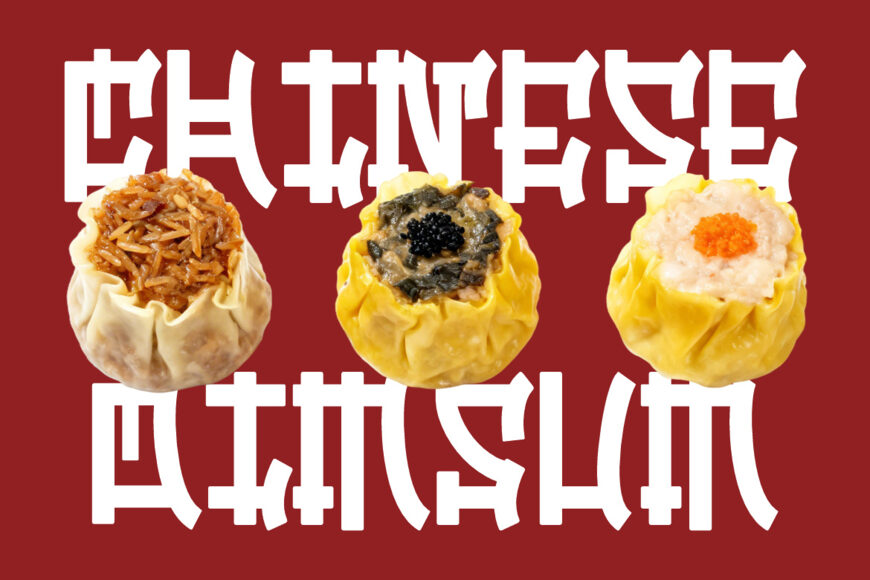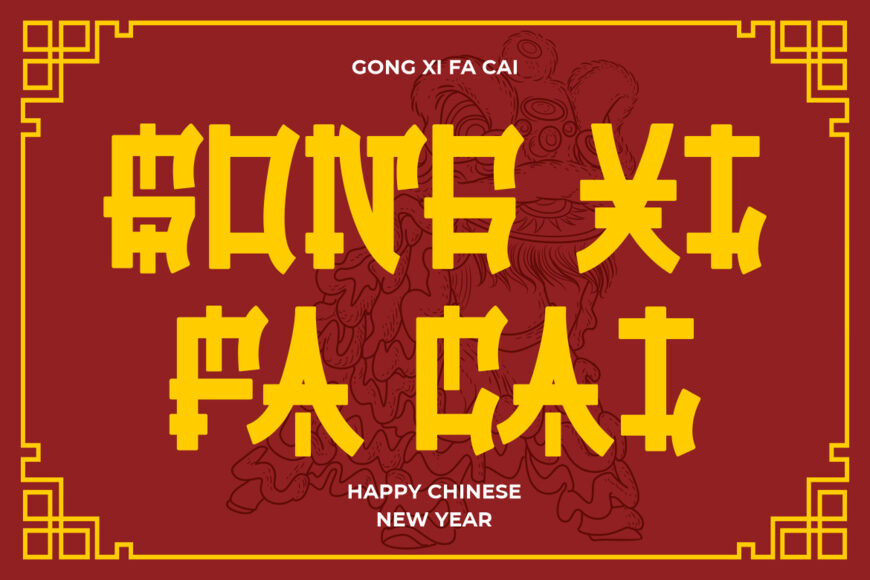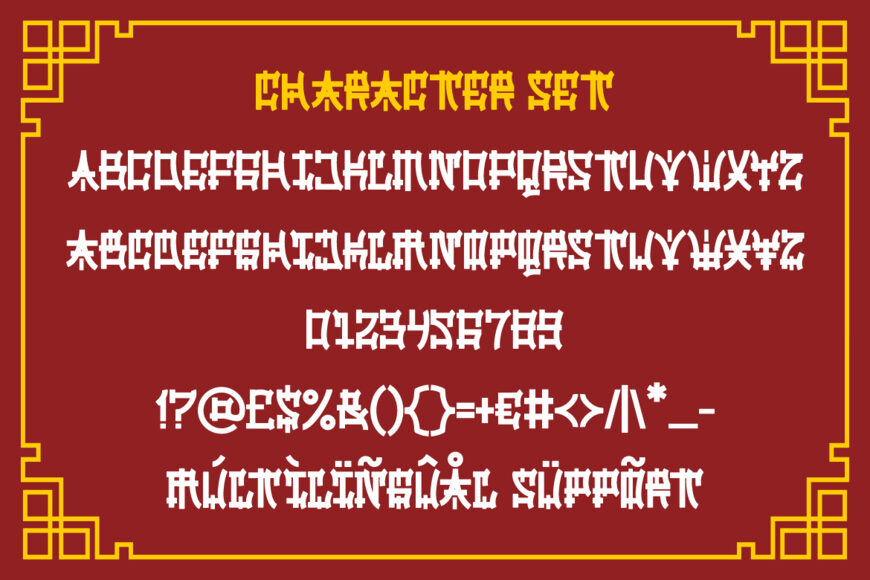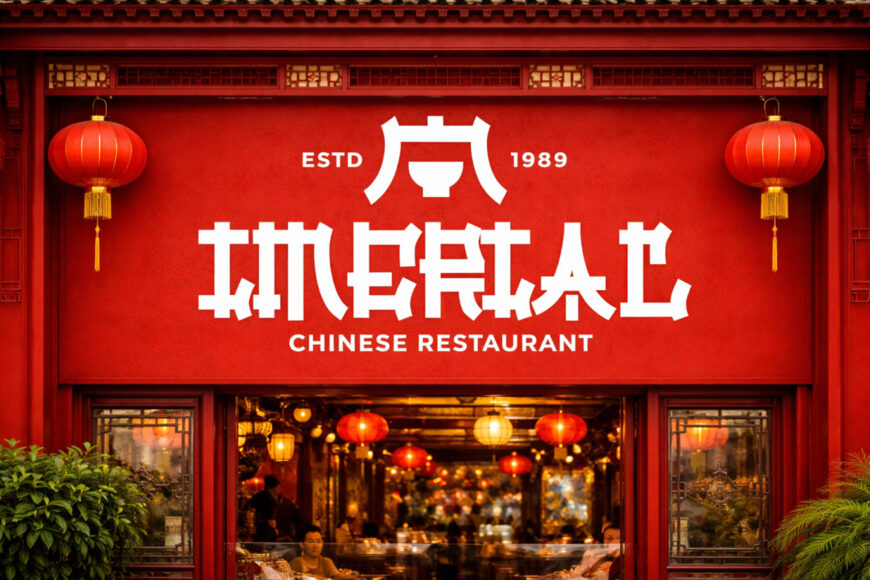
Chinese Empire Font
Chinese Empire is a bold display font influenced by traditional East Asian lettering. Its heavy strokes, squared edges, and geometric details create a powerful, structured appearance. Strong vertical and horizontal lines are balanced by sharp terminals, angular turns, and decorative corners reminiscent of classic cultural signage.
Wide, compact proportions give words a solid, attention-grabbing look, while the consistent weight ensures impact in headlines. Combining heritage-inspired character with modern legibility, Chinese Empire suits logos, food packaging, themed campaigns, and other visual identities that need an energetic, distinctive style.